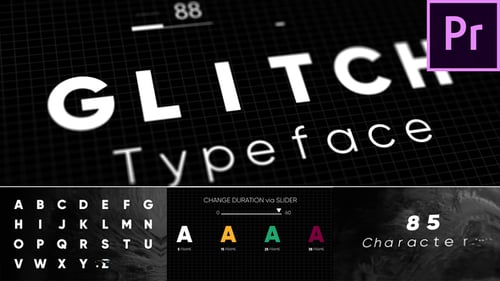
Dynamic Glitch Animated Typeface with Digital Effects
Unleash a dynamic visual impact with this animated typeface template, featuring a compelling glitch effect. This template showcases a full set of uppercase and lowercase letters, numbers, and symbols, each brought to life with digital disruptions, RGB splits, and pixel-tearing effects. Designed for maximum flexibility, it allows users to effortlessly control the duration of each character's animation via an intuitive slider. Ideal for creating eye-catching intros, modern titles, tech-themed content, music videos, or any project requiring a cutting-edge, data-corrupted aesthetic. Elevate your typography with a modern, edgy, and customizable motion design that commands attention.